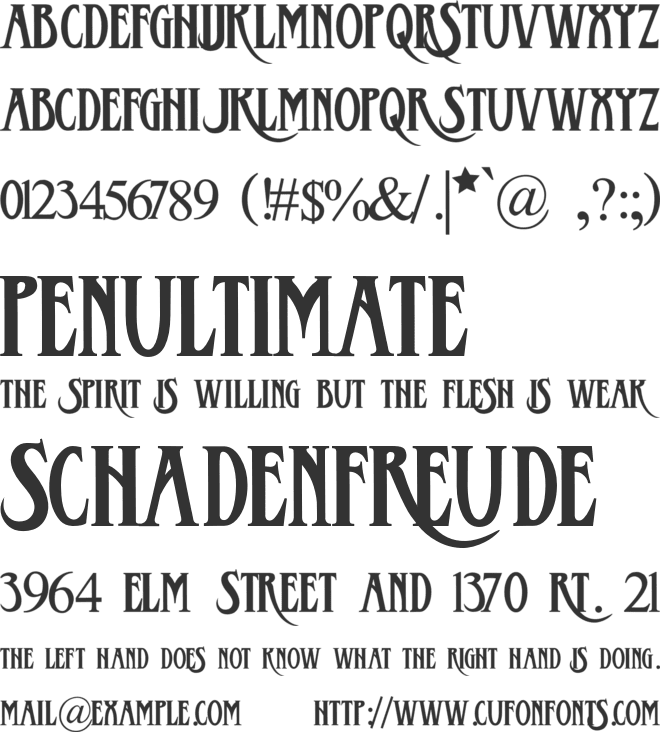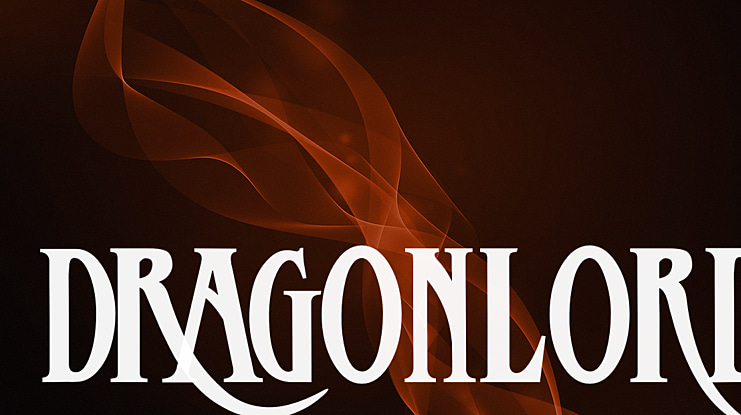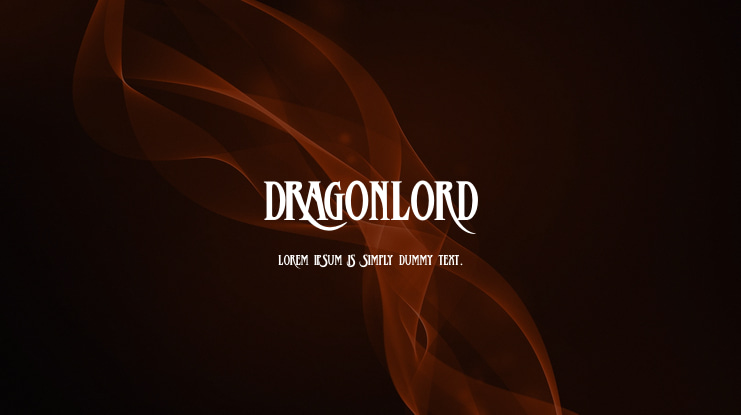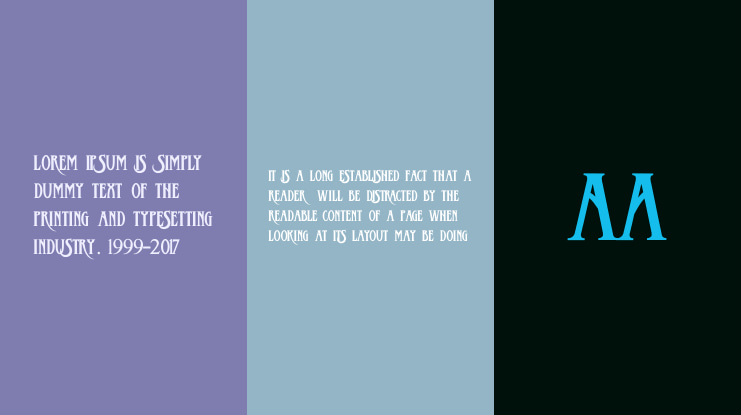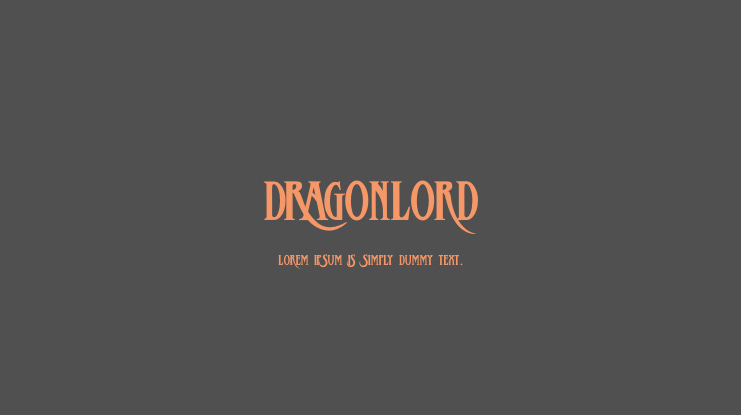
DRagonlord Font
A decorative font. Initially it was based loosely on the upcoming 2022 “‘Doctor Strange” movie, but eventually developed a personality of its own!